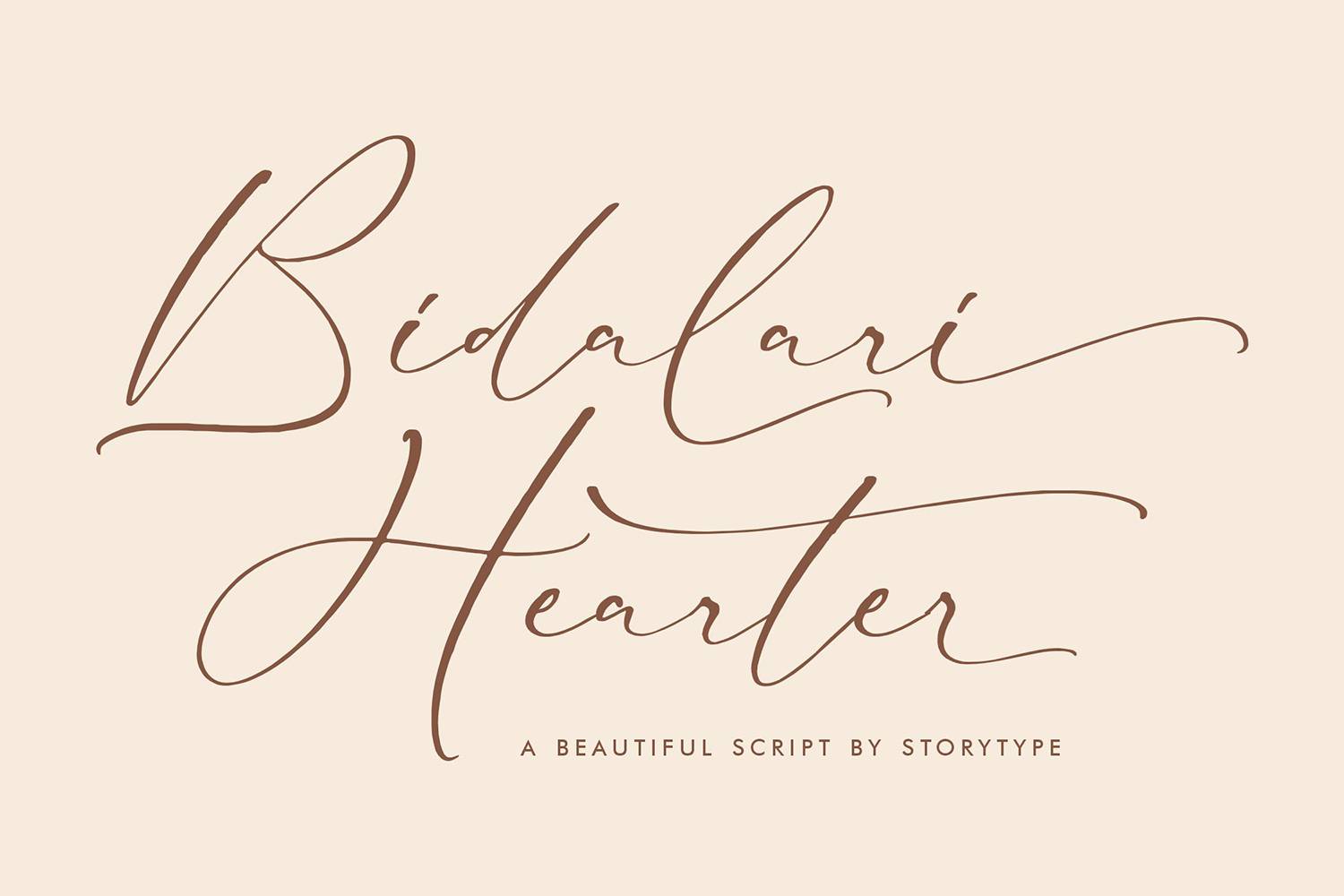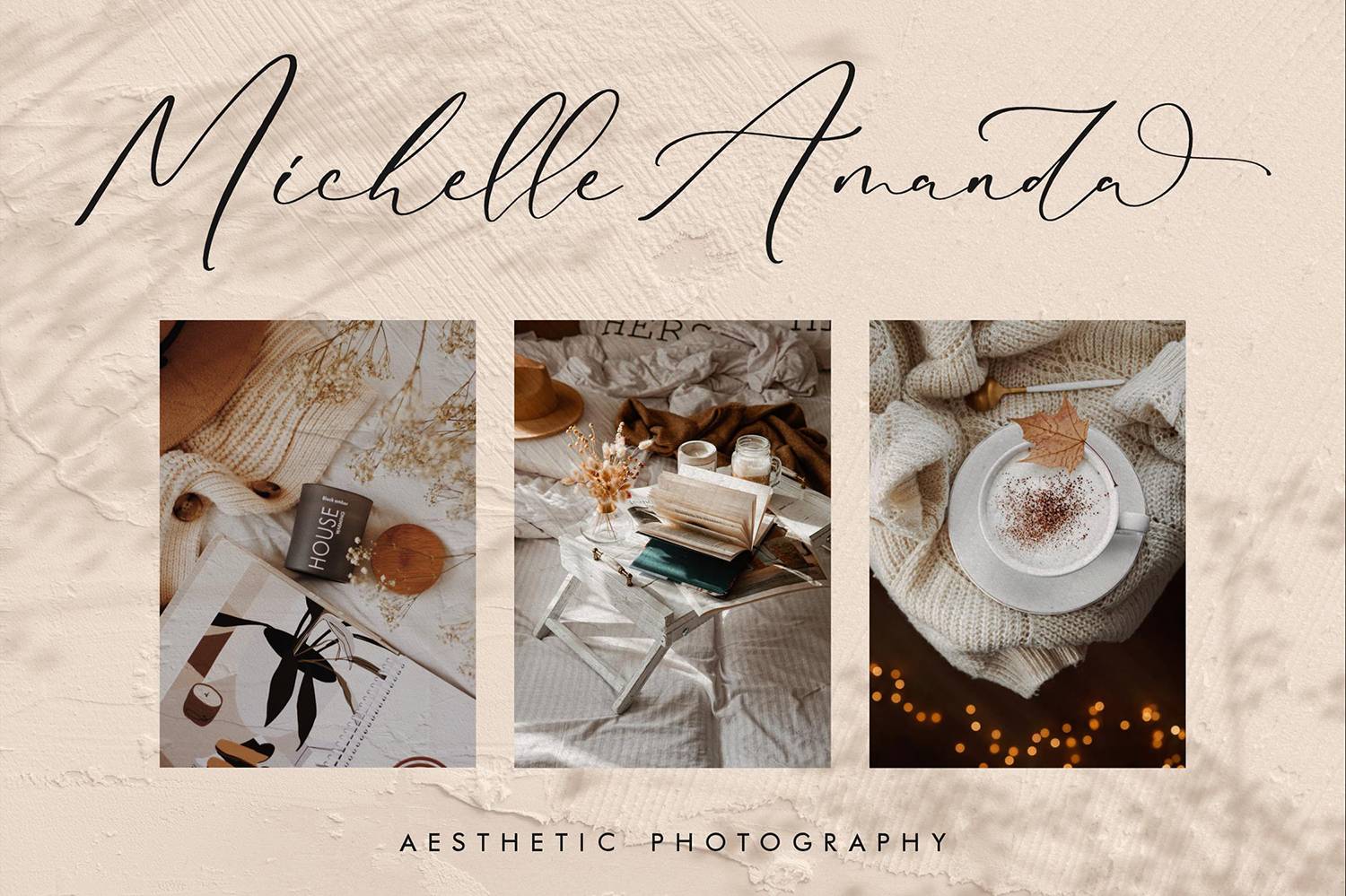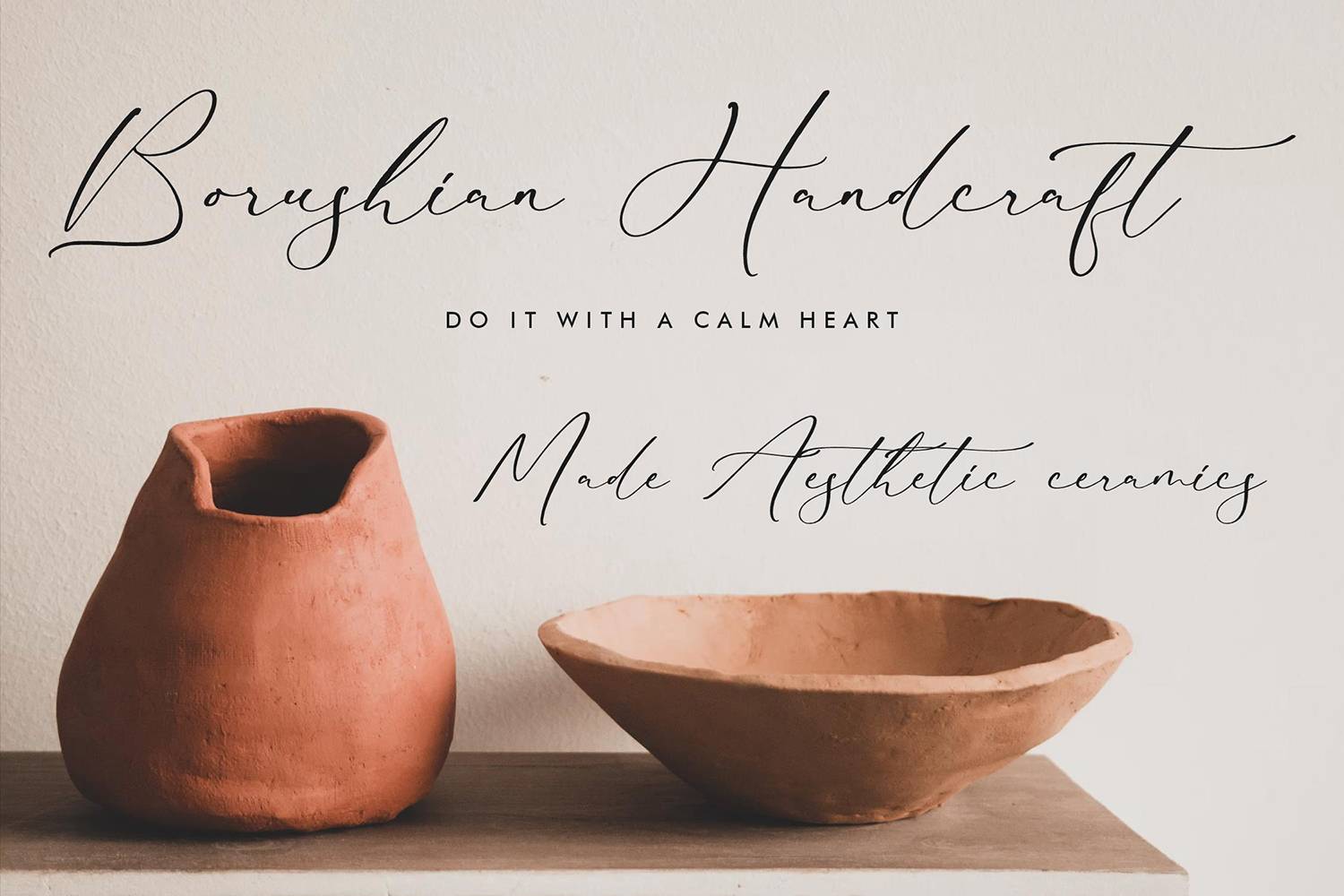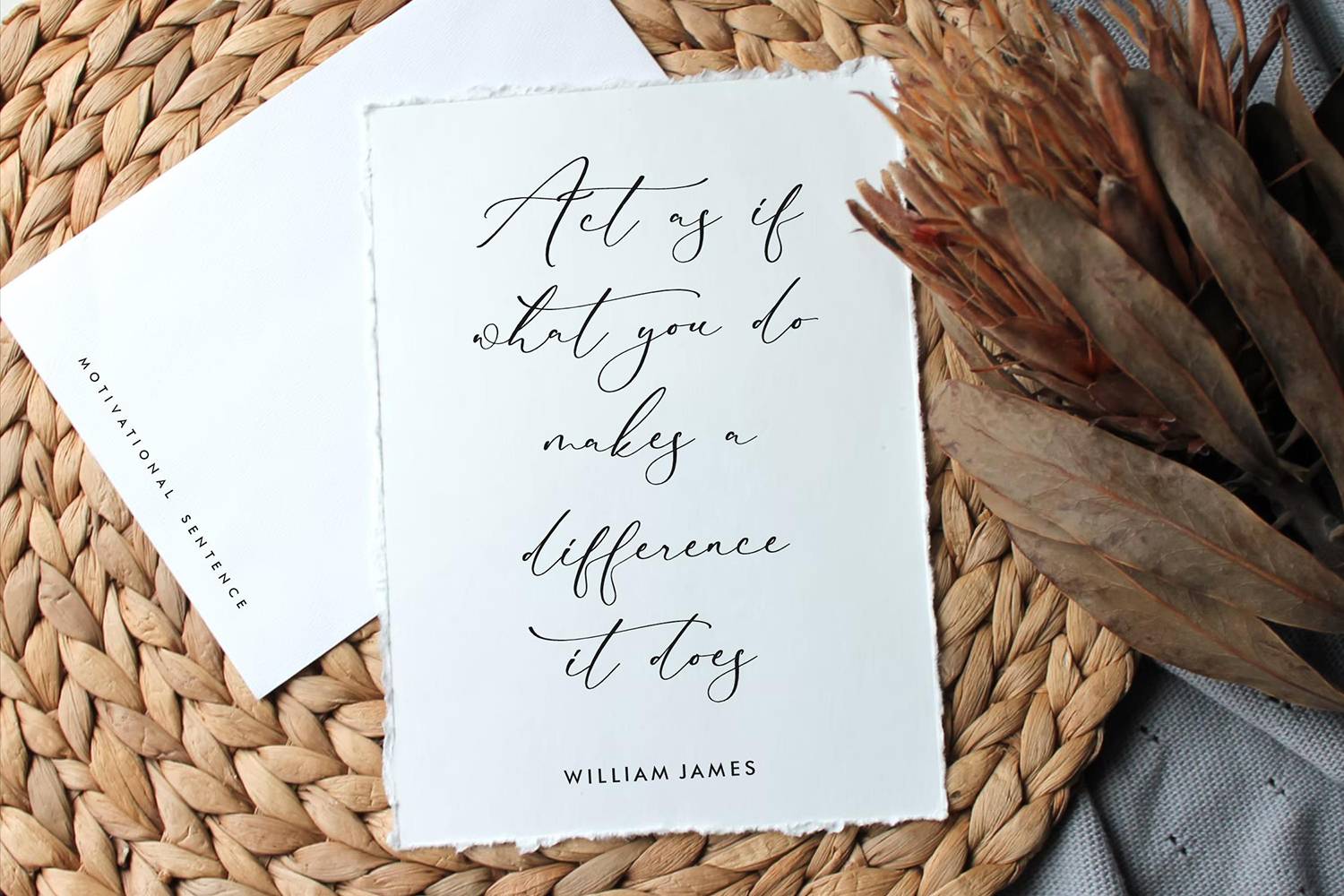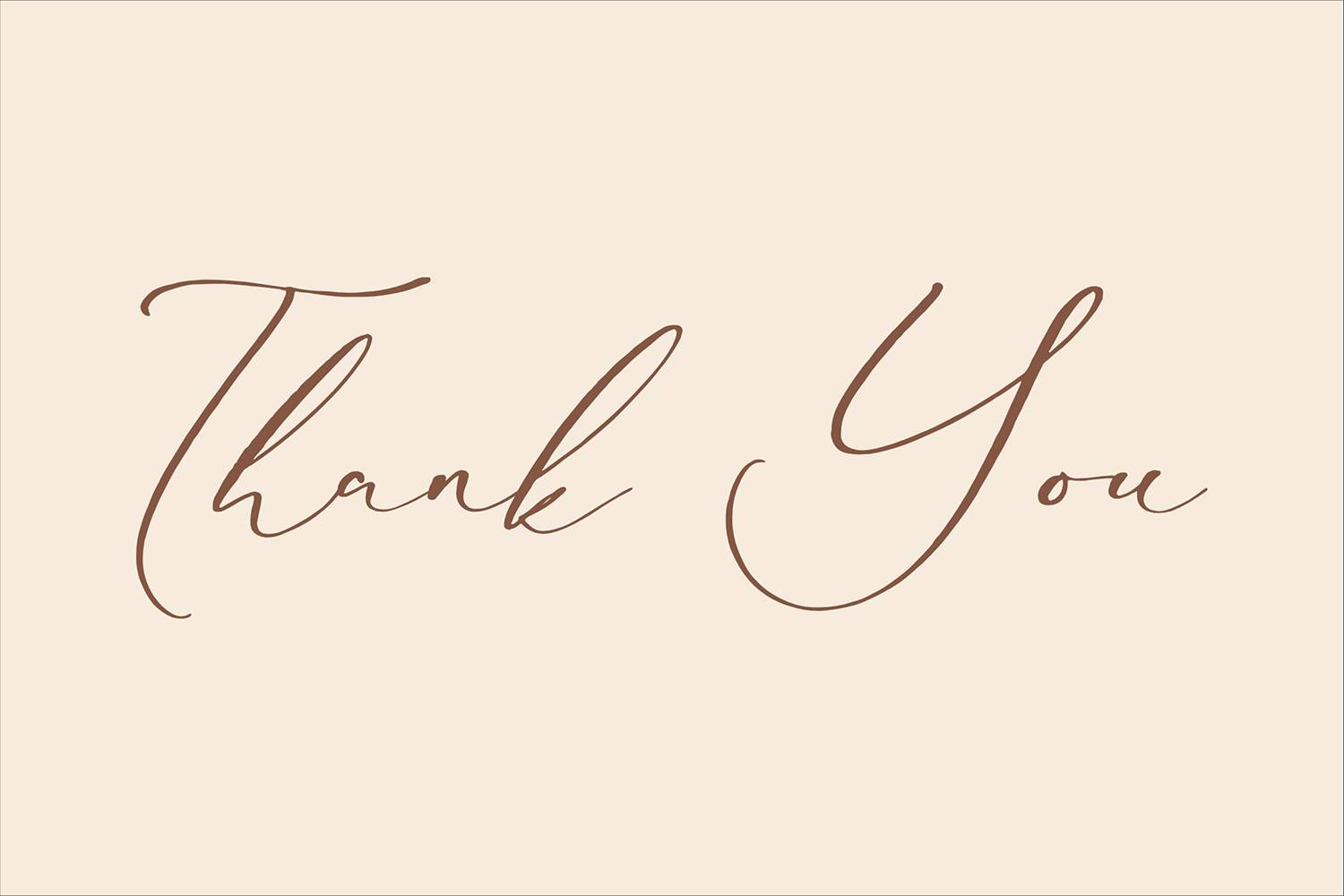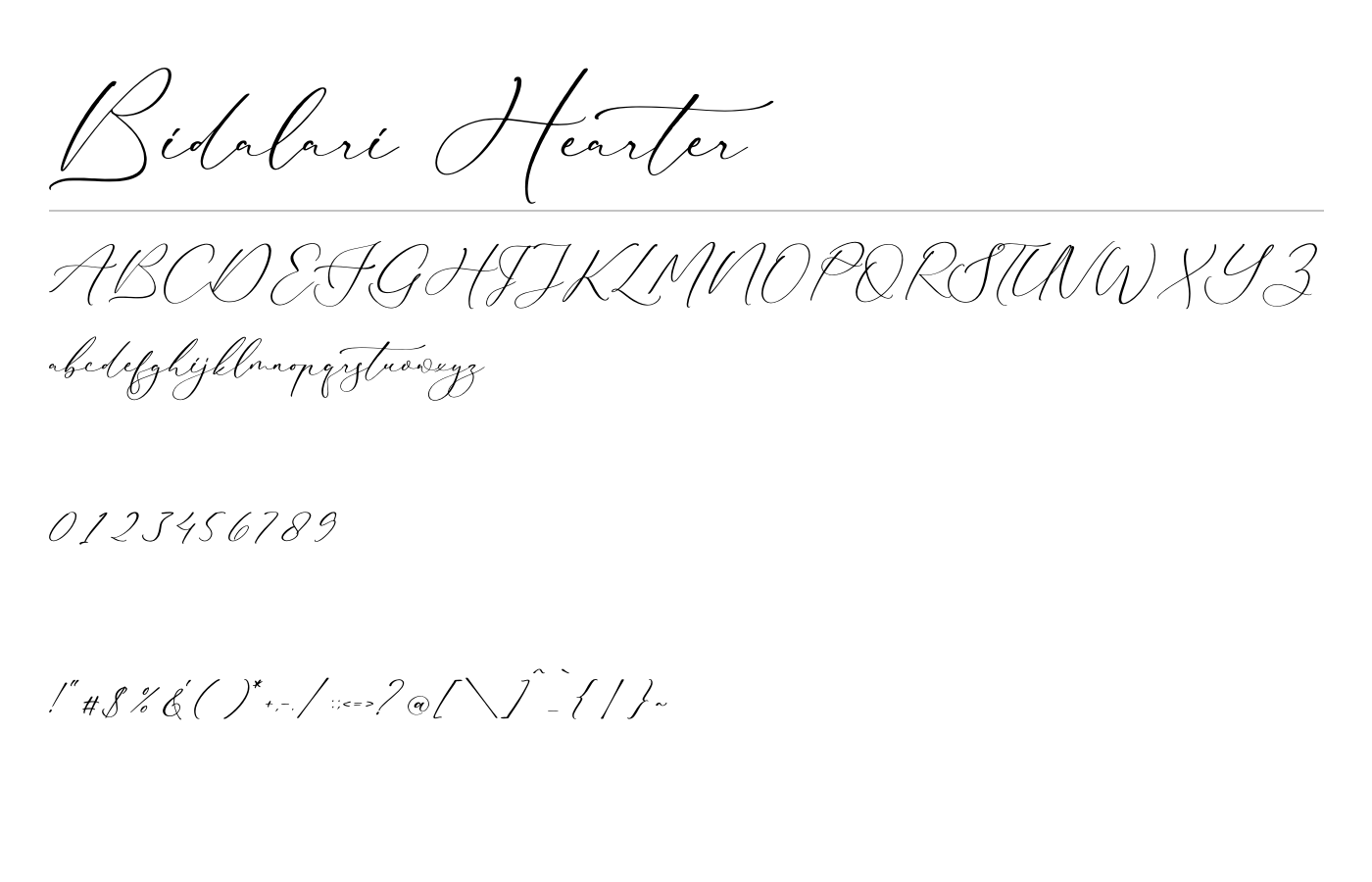
Bidalari Hearter is a delicate, elegant script font characterized by its fine, flowing strokes and graceful cursive forms. Its light weight and airy spacing make it perfect for sophisticated wedding invitations, luxury branding, and romantic designs that need a refined, personal touch. The font’s slender, handwritten style conveys a sense of intimacy and charm, enhancing any project that aims to feel both stylish and heartfelt.
Bidalari Hearter Font
About Bidalari Hearter Font